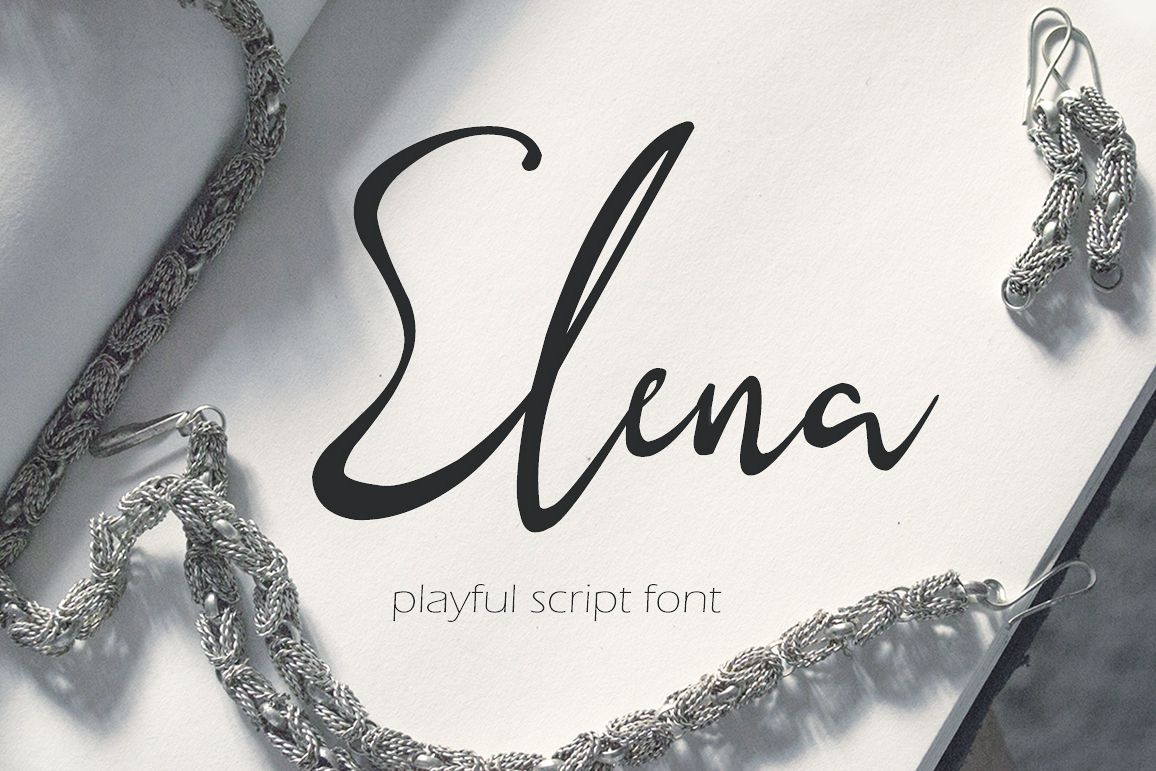
Elena - playful script
Elena-Regular
Elena - playful script font. Unfixed baseline and 35 ligatures makes a more realistic handwritting style. Diacritical symbols and glyphs allow you to use the font not only for Latin, Cyrillic glyphs also there! This font can be applied to design cards, logos, clothing design, wedding invitations, social media and much more
• letters A-z, numerals, standart punctuation, 35 ligatures, multilingual glyphs and cyrillic, that makes this font more gorgeous :)